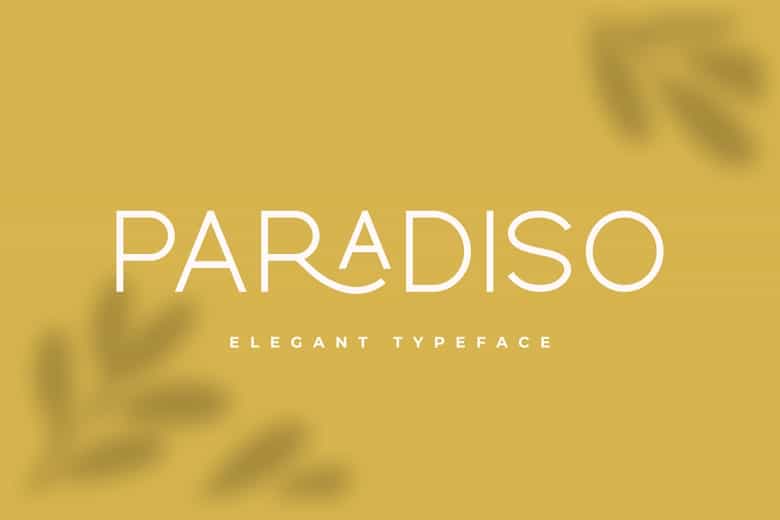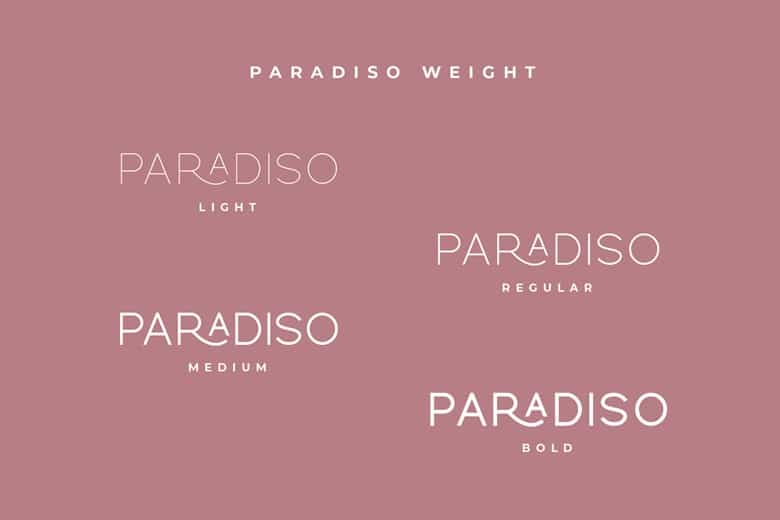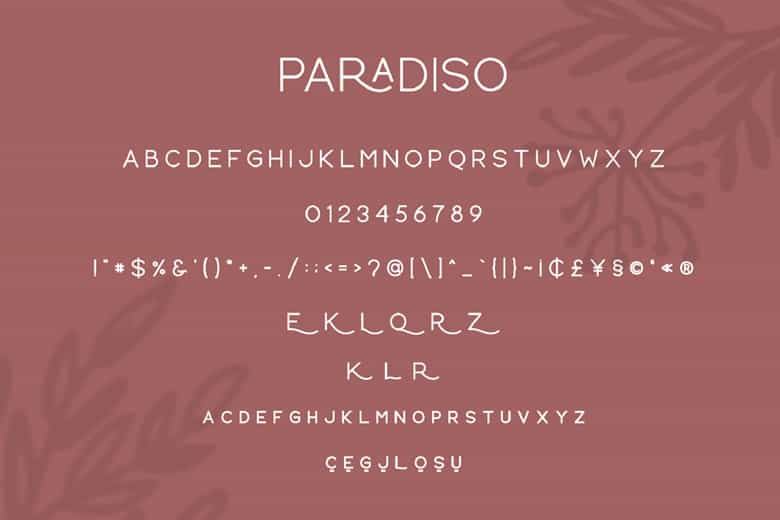
We are glad to introduce you a new font Paradiso. It is a beautiful elegant typefaces with one usable alternate. You can use Paradiso font for logos, brands, wedding invitations, quotes, advertisements and many others.